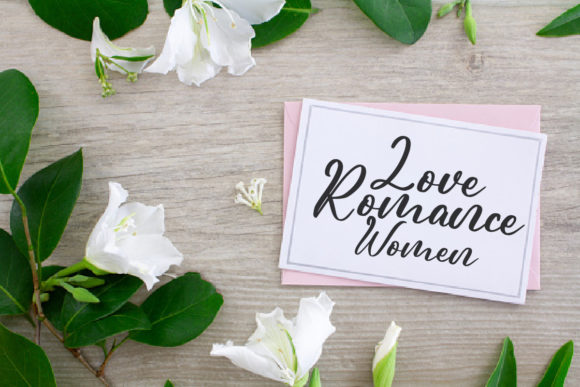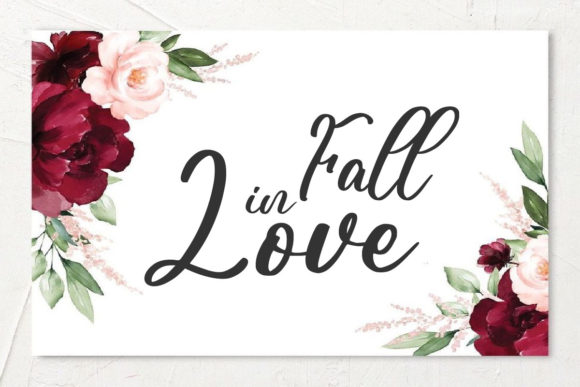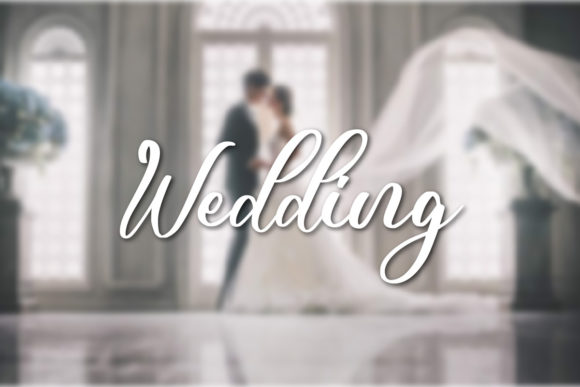
Sidney Font
About Sidney Font
Sidney is a carefully crafted and well-balanced handwritten font that brings a touch of elegance and versatility to your design projects. With its clean and natural strokes, Sidney is a font that can enhance a wide range of creative endeavors, making it a perfect choice for various design needs.
For branding purposes, Sidney offers a timeless and sophisticated look that can help establish a strong and memorable brand identity. Whether you’re designing a logo, business cards, or packaging, this font’s balanced and harmonious letters create a professional and polished appearance that resonates with your target audience.
In advertising materials, Sidney’s clean lines and legibility ensure that your message is conveyed with clarity and style. Its handwritten charm adds a personal and approachable touch, making your advertisements more engaging and relatable to your audience.
Quotes and inspirational messages come to life when rendered in Sidney. The font’s well-balanced design allows each word to flow seamlessly, capturing the essence of the message and drawing the reader in. Whether you’re creating social media graphics, posters, or merchandise, Sidney’s versatility ensures that your words are showcased beautifully.
Special events, such as weddings, parties, and celebrations, can benefit from Sidney’s elegant aesthetic. From invitations to signage and decorative elements, this font adds a touch of sophistication that complements the occasion’s theme and atmosphere.
Sidney’s adaptability extends to various design projects, from website headers to book covers. Its clean and balanced strokes make it easy to read and visually pleasing, ensuring that your content stands out and captures attention.
Overall, Sidney’s well-balanced and versatile nature makes it a valuable asset for any designer or creative. Its timeless charm, legibility, and elegance make it a font that can seamlessly fit into a wide range of design needs, whether you’re working on branding, advertising, quotes, logos, or special events. Embrace Sidney’s beauty and functionality to elevate your designs and create impactful visuals that leave a lasting impression.